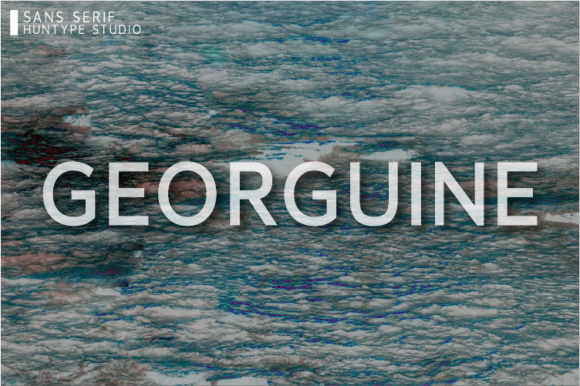
Introducing Georguine Font: A Distinct and Elegant Sans Serif for Modern Designs
In the world of typography, fonts play a crucial role in conveying messages, expressing emotions, and creating visual identities. Among the numerous fonts available, Georguine stands out as a distinct and elegant sans serif font that seamlessly blends traditional influences into a contemporary aesthetic. In this article, we will explore the unique features of Georguine, its benefits, and how to use it to achieve an exquisite, yet subtle look and maximum versatility in your designs.
The Story Behind Georguine
Georguine is a carefully crafted font that draws inspiration from traditional typography while infusing it with a modern twist. The font’s design is rooted in the principles of classic sans serif fonts, but with a unique approach that sets it apart from others in its category. Georguine’s creator aimed to develop a font that would be both elegant and versatile, suitable for a wide range of applications, from branding and advertising to publishing and digital media.
Key Features of Georguine
Georguine boasts several key features that make it an attractive choice for designers:
- Distinctive letterforms: Georguine’s letters are designed with a unique flair, featuring subtle curves and refined lines that give the font its elegant feel.
- Clean and legible: The font’s sans serif design ensures excellent legibility, making it suitable for body text, headings, and titles.
- Versatile: Georguine’s neutral design allows it to adapt seamlessly to various design contexts, from formal to informal, and from digital to print.
- Highly readable: The font’s carefully crafted letterforms and spacing ensure optimal readability, even at small font sizes.
Using Georguine for Maximum Versatility
Georguine’s versatility is one of its greatest strengths, making it an excellent choice for a wide range of design applications. Here are some ways to use Georguine to achieve an exquisite, yet subtle look:
- Branding and logos: Georguine’s elegant design makes it an excellent choice for logos, wordmarks, and brand identities.
- Headings and titles: The font’s distinctive letterforms and clean design make it perfect for headings, titles, and subtitles.
- Body text: Georguine’s legibility and readability ensure that it can be used effectively for body text, making it an excellent choice for publications, websites, and marketing materials.
- Digital media: Georguine’s neutral design and clean lines make it suitable for digital media, including mobile apps, e-books, and digital advertising.
Tips for Pairing Georguine with Other Fonts
While Georguine is an excellent font on its own, pairing it with other fonts can add an extra layer of creativity to your designs. Here are some tips for pairing Georguine with other fonts:
- Contrast with serifs: Pair Georguine with serif fonts to create a visually appealing contrast between traditional and modern designs.
- Match with similar sans serifs: Combine Georguine with other sans serif fonts that share similar characteristics to create a cohesive look.
- Experiment with script fonts: Pair Georguine with script fonts to add a touch of elegance and sophistication to your designs.
Georguine is a distinct and elegant sans serif font that offers a unique blend of traditional influences and contemporary aesthetics. Its versatility, legibility, and readability make it an excellent choice for a wide range of design applications. By understanding the key features of Georguine and experimenting with different design approaches, you can unlock the full potential of this exceptional font and achieve an exquisite, yet subtle look in your designs.
- What is Georguine font?
- Georguine is a distinct and elegant sans serif font that blends traditional influences into a contemporary aesthetic.
- What are the key features of Georguine?
- Georguine boasts distinctive letterforms, clean and legible design, versatility, and high readability.
- How can I use Georguine in my designs?
- Georguine can be used for branding, headings, titles, body text, and digital media, offering maximum versatility and an exquisite, yet subtle look.